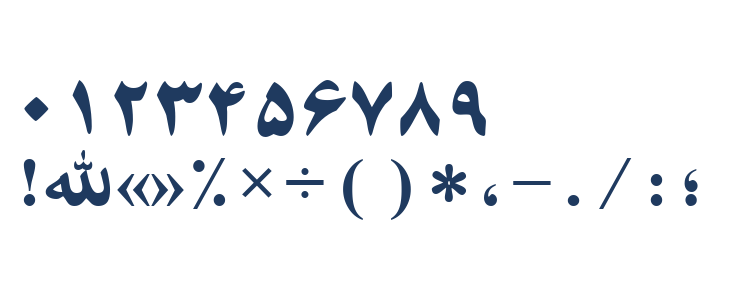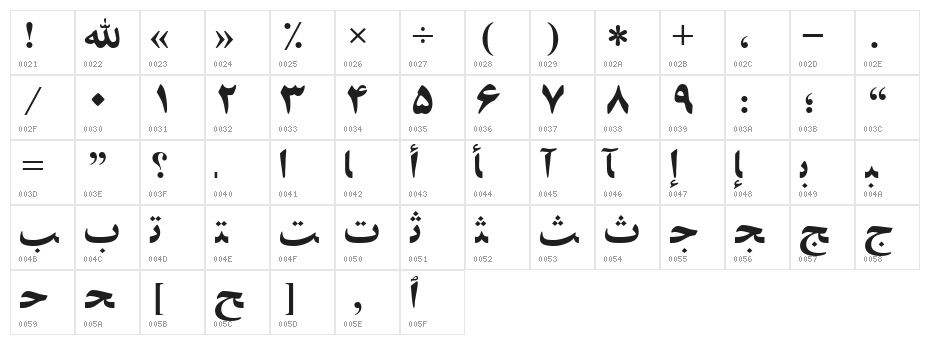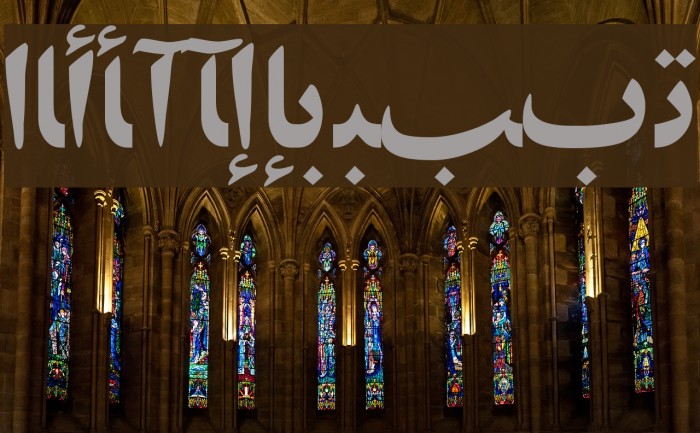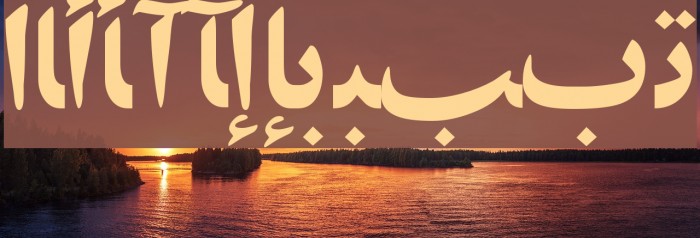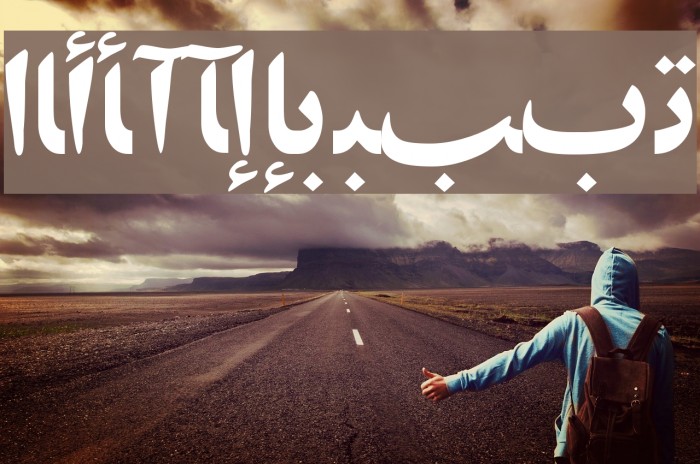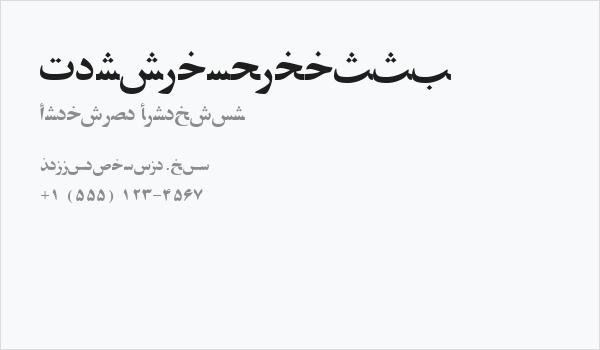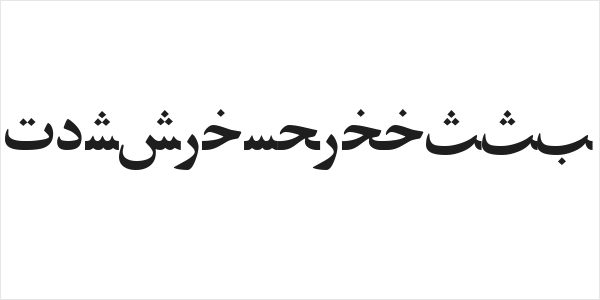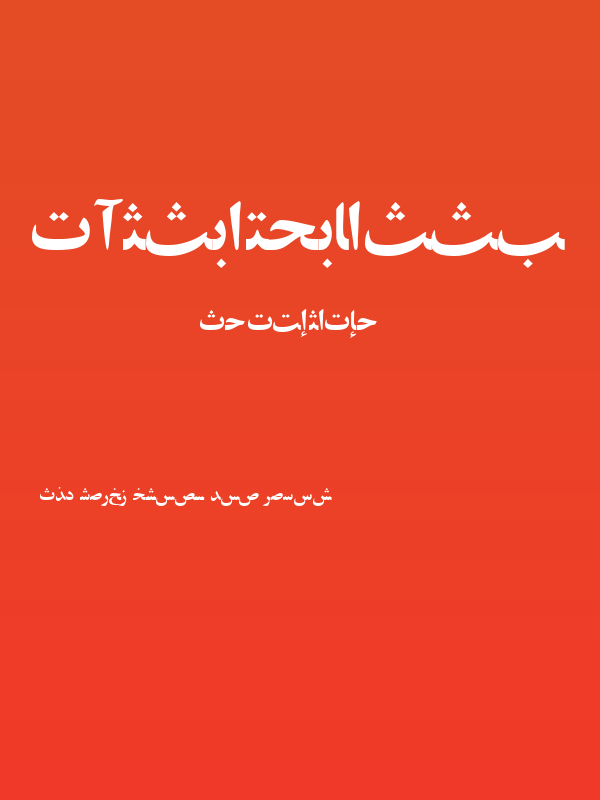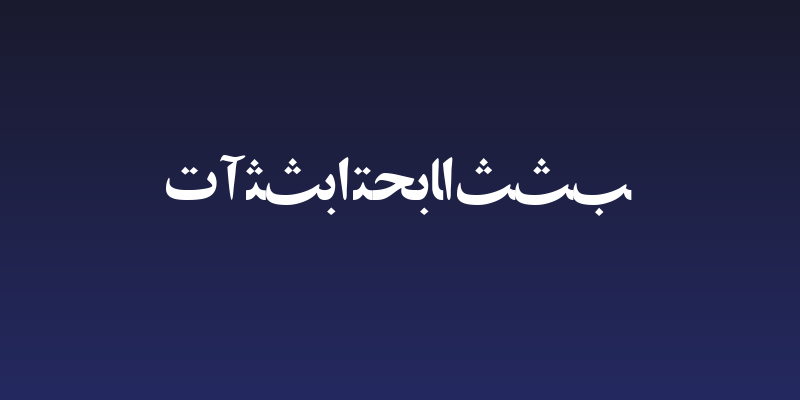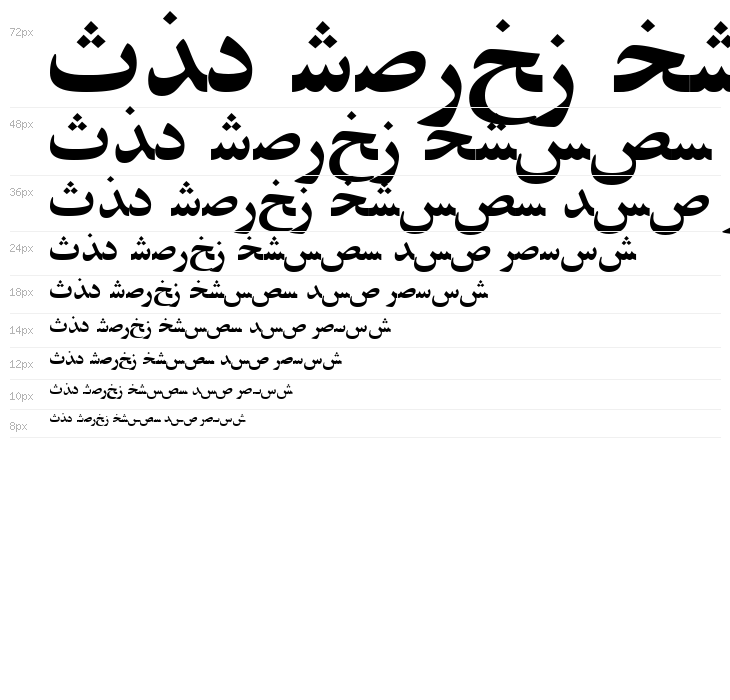
PersianZibaSSK Font
PersianZibaSSK Description
This font showcases a bold and expressive style with a strong emphasis on fluidity and elegance. The characters are designed with a high contrast in stroke thickness, giving them a dynamic and eye-catching appearance. The script-like quality of the font is enhanced by its flowing curves and intricate details, making it suitable for decorative purposes. The overall design is both modern and traditional, capturing the essence of Persian calligraphy while maintaining a contemporary edge. The numerals and special characters are crafted to complement the alphabet, ensuring a cohesive look across all text elements.